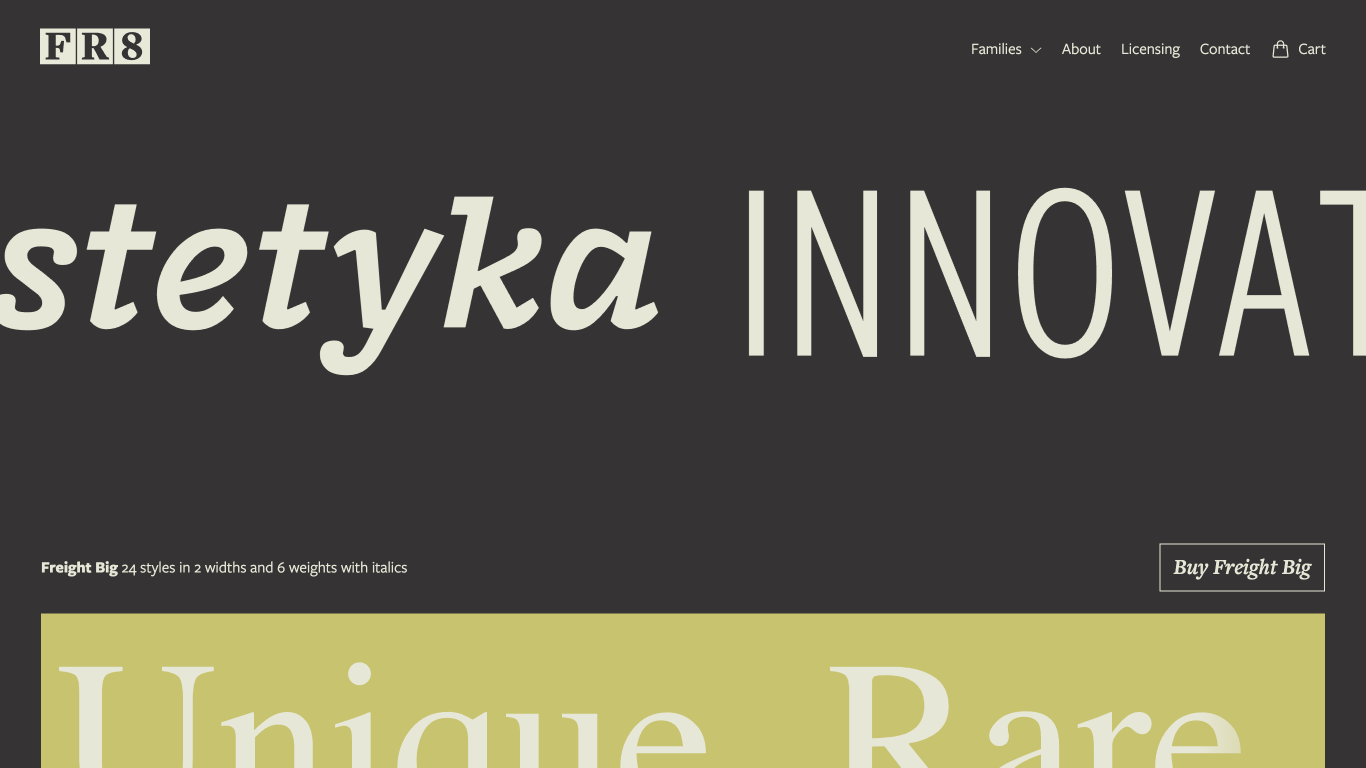
Freight Collection
The Freight Collection, founded by Joshua Darden in 2005, is a comprehensive suite of integrated typefaces inspired by 18th-century Dutch designs, offering versatility across various weights, widths, and optical sizes to suit diverse design applications.